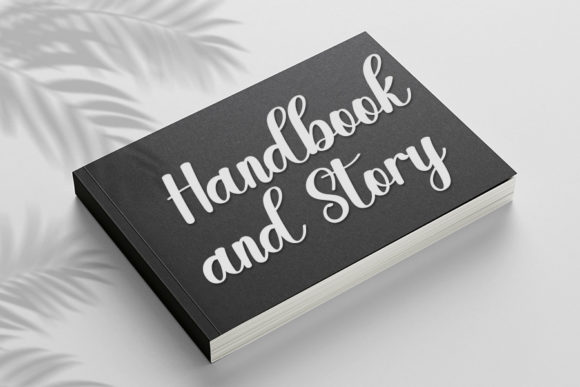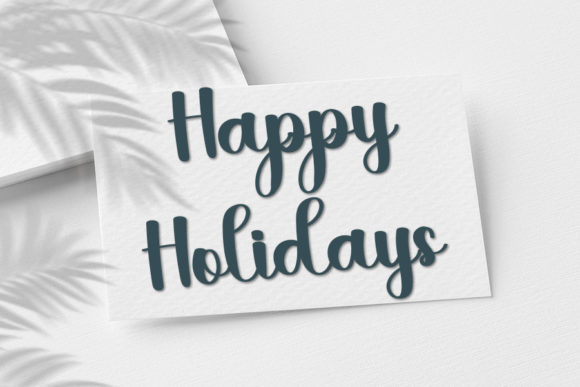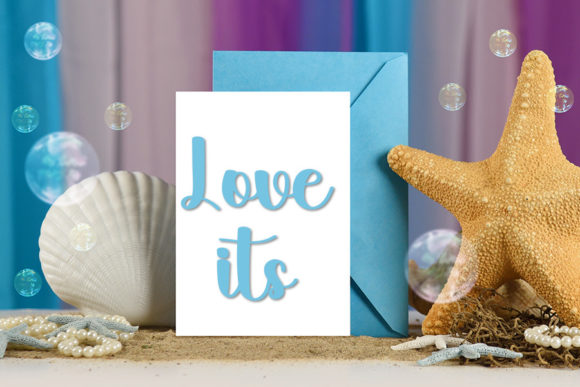
About Sunday Font
Sunday is an enchanting handwritten font. This versatile typeface has a wide spectrum of applications ranging from greeting cards to headlines and is guaranteed to add a romantic feel to your next project. Don’t miss out on the chance to make your creative designs the best they can be!